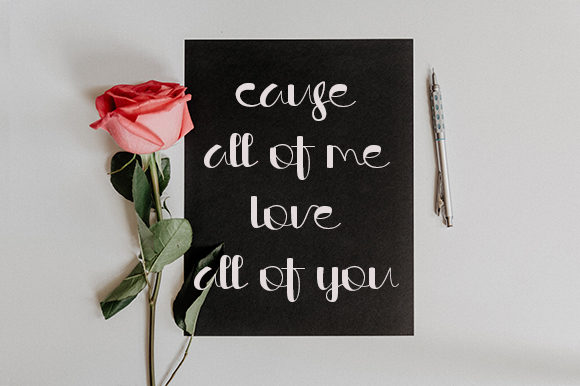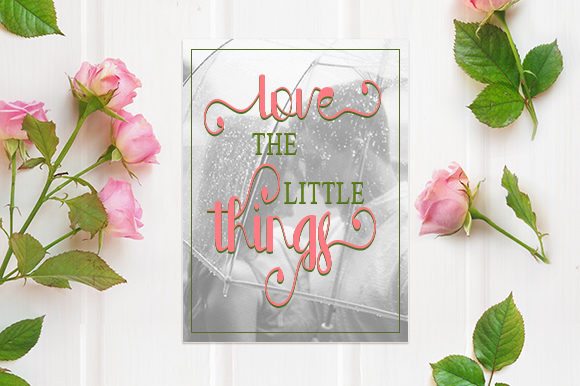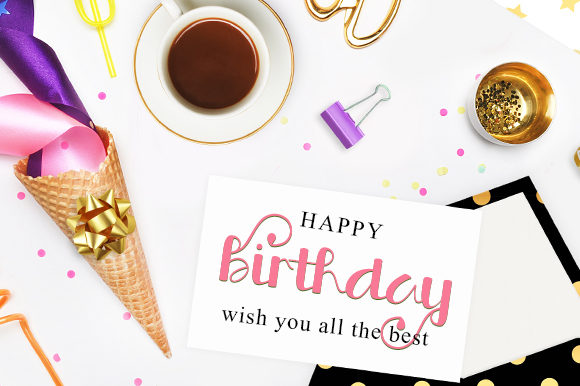
Introduction to Morgana Font
Morgana Script puts a contemporary twist on classic calligraphy.
Get inspired by its light charm, and put an authentic twist on any design project with this handwritten font .
Key Features of Morgana Font
Why Choose Morgana Font?
Morgana Font offers exceptional quality and versatility, making it a valuable addition to your design toolkit. Whether you’re creating for personal projects or commercial use, Morgana Font delivers professional results.